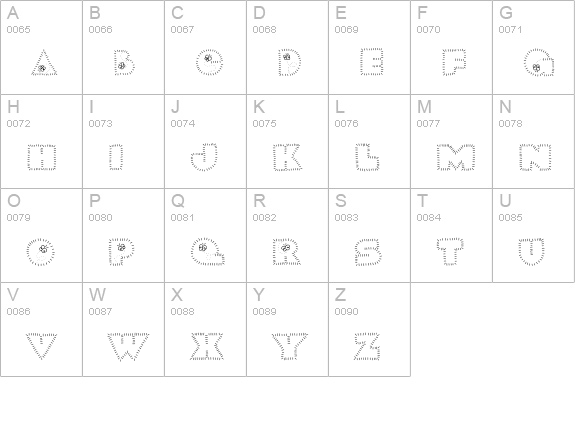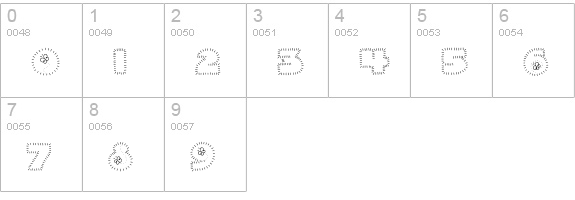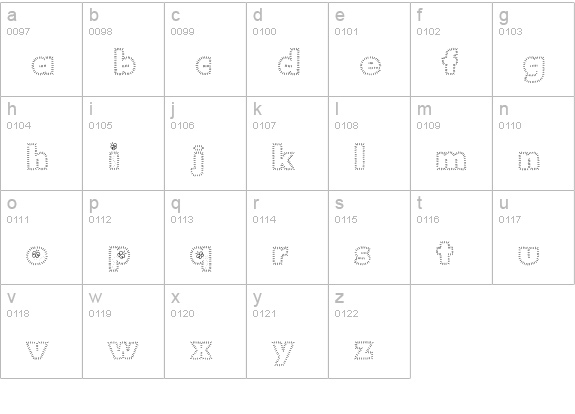
CK Butterfly Font Details
Introducing the exquisite CK Butterfly font - a delicate and elegant typeface that is perfect for adding a touch of sophistication to your design projects. With its graceful curves and intricate details, CK Butterfly exudes a sense of beauty and refinement that is sure to captivate your audience. This stunning font is not only visually appealing but also versatile, making it suitable for a wide range of design applications. Whether you're creating wedding invitations, branding materials, or decorative labels, CK Butterfly is sure to elevate your designs to the next level. And the best part? CK Butterfly is available for free download at FontsMarket.com! So go ahead and bring a touch of elegance to your projects with this exquisite font today.